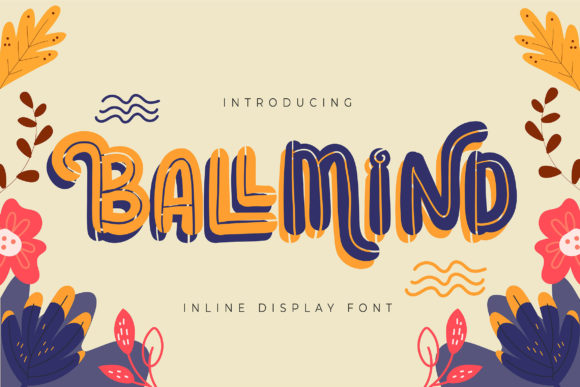
Step into a realm of limitless creativity with Ballmind Font, a playful and fun display font that will ignite your imagination. Let your designs dance with joy and whimsy as Ballmind transforms your words into captivating works of art.
Whether you're a seasoned graphic designer seeking to elevate your projects or a passionate DIY enthusiast yearning for unique expression, Ballmind is your font-tastic companion. Unleash your creativity and watch as your designs blossom into extraordinary masterpieces.
With Ballmind, the possibilities are endless. Craft eye-catching social media posts that will make your Instagram feed a vibrant symphony of colors and fonts. Design invitations and greeting cards that exude warmth and personality, leaving a lasting impression on your loved ones. Transform your DIY projects into bespoke creations, infusing them with a touch of whimsy and charm.
The versatility of Ballmind knows no bounds. Experiment with different sizes, colors, and effects to create a visual feast that will captivate your audience. Whether you're designing logos, posters, or website headers, Ballmind will elevate your designs to new heights, making them stand out from the crowd.
So, embrace the playful spirit of Ballmind Font and let your creativity soar. With every stroke of your digital pen, you'll bring your artistic visions to life, leaving an indelible mark on the world of design.